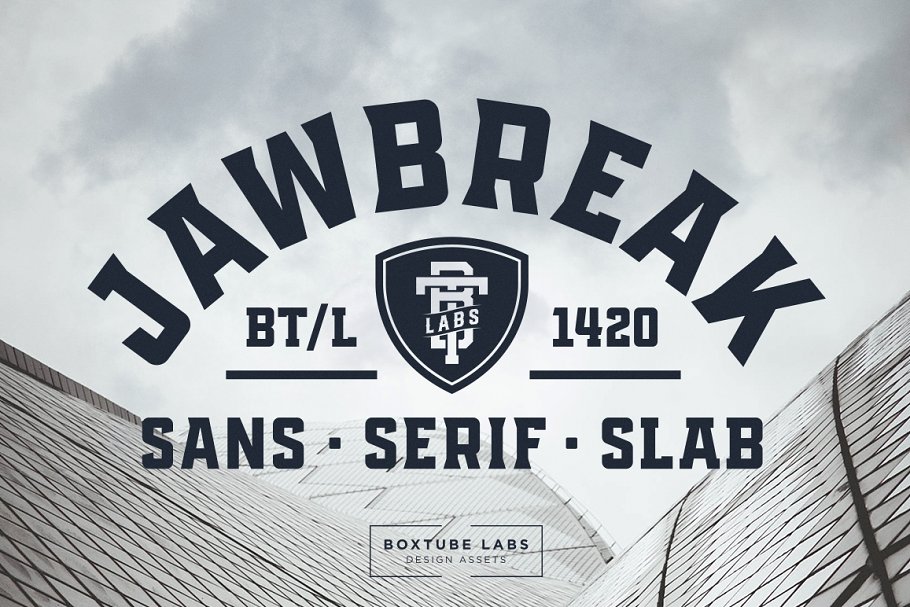
Introducing the Sports Font Bundle BTL.2, brought to you by BoxTube Labs - the ultimate collection of fonts for all your sporty and athletic needs. With a total of 61 unique fonts, this bundle is a game-changer for sports logos, club branding, apparel applications, labels, and more.
Our top sellers, Jawbreak and Hitch Route, are just the beginning. Jawbreak is a modern sports font with classic roots, offering distinct styles and alternate cuts that will make your designs stand out from the crowd. Meanwhile, Hitch Route is a true sports branding workhorse, combining a timeless look with a modern edge and a plethora of styles, ligatures, and stylistic alternates.
But the Sports Font Bundle BTL.2 doesn't stop there. Kensmark is a powerful and creative type family with a staggering 45 fonts, allowing unparalleled versatility and flexibility in your designs. Infield, on the other hand, is a modern and edgy athletic font family with four creative styles that will add an extra touch of flair to your projects. And let's not forget Backcheck, a font that exudes attitude with its strong, confident, and powerful aesthetic.